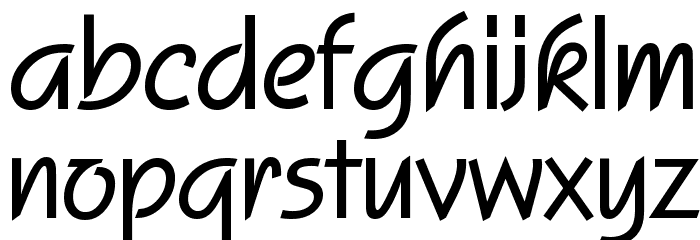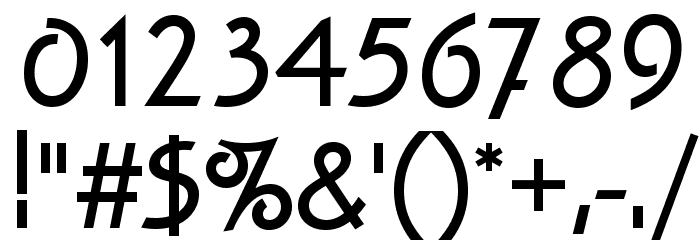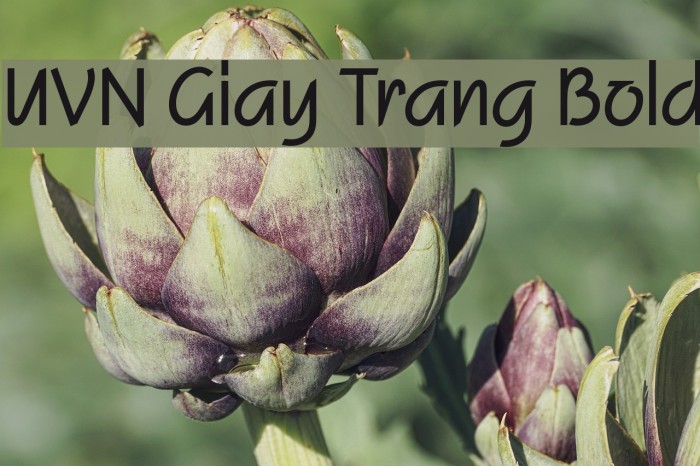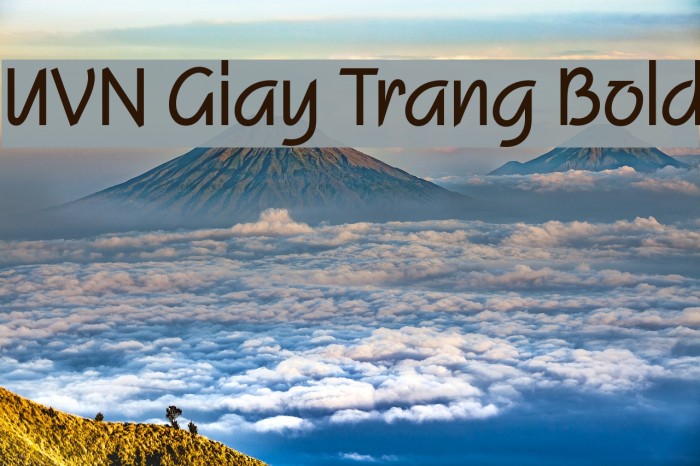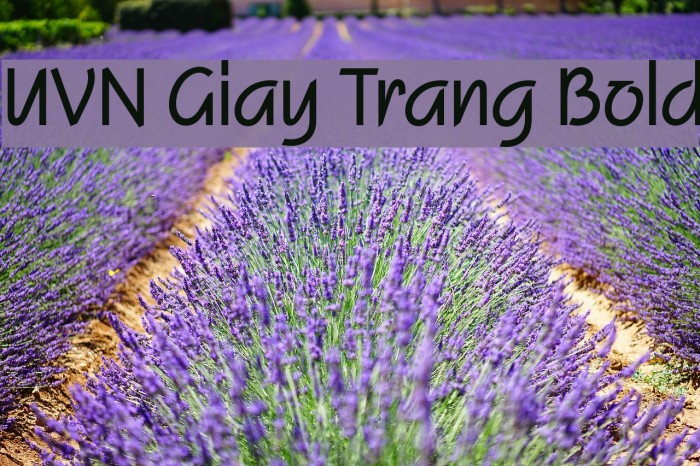
UVN Giay Trang Bold Font
This font features a bold and dynamic style with a unique blend of sharp angles and smooth curves. The uppercase letters are characterized by their strong presence and slightly condensed form, giving them a modern and assertive look. The lowercase letters maintain a consistent flow with a slight slant, adding a touch of elegance and movement. The numerals are clear and robust, ensuring readability. Special characters are well-integrated, maintaining the overall aesthetic of the font. This font's design is both versatile and distinctive, making it suitable for various creative applications.
A bold, dynamic font with sharp angles and smooth curves, offering a modern and assertive look.